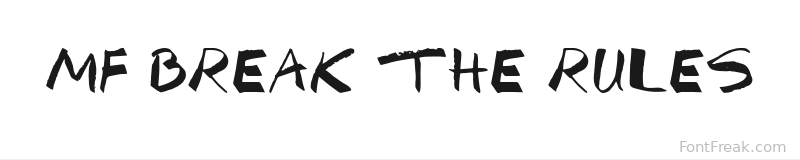
Mf Break The Rules
About Mf Break The Rules
Mf Break The Rules, designed by Misti Hammers, is a striking display font that captures attention with its bold, expressive style. This decorative typeface features uneven stroke weights and a hand-drawn quality that adds a sense of spontaneity and creativity. The irregularities in the letterforms give it a playful yet edgy feel, making it ideal for projects that aim to stand out.
The visual characteristics of Mf Break The Rules include sharp angles and dynamic shapes that evoke a sense of movement. The contrast between thick and thin strokes enhances its dramatic effect, while the spacious letter spacing contributes to readability, allowing the font to perform well in various applications. Its unique design elements make it a versatile choice for a range of creative projects.
This font is particularly well-suited for use in wedding invitations where a touch of whimsy is desired, movie posters that require a bold statement, and restaurant menus seeking a modern twist. It can also be effectively used in branding for small businesses looking to convey a fun, approachable image, as well as in social media graphics designed by content creators aiming to grab attention.